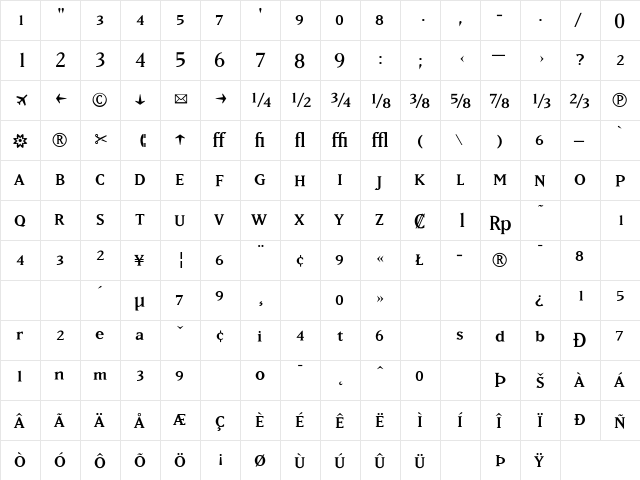
MatrixFractions Roman
Design Context for MatrixFractions Typeface
MatrixFractions offers clean, dependable letterforms without strong stylistic allegiance, making it a practical choice for designers who need flexibility.